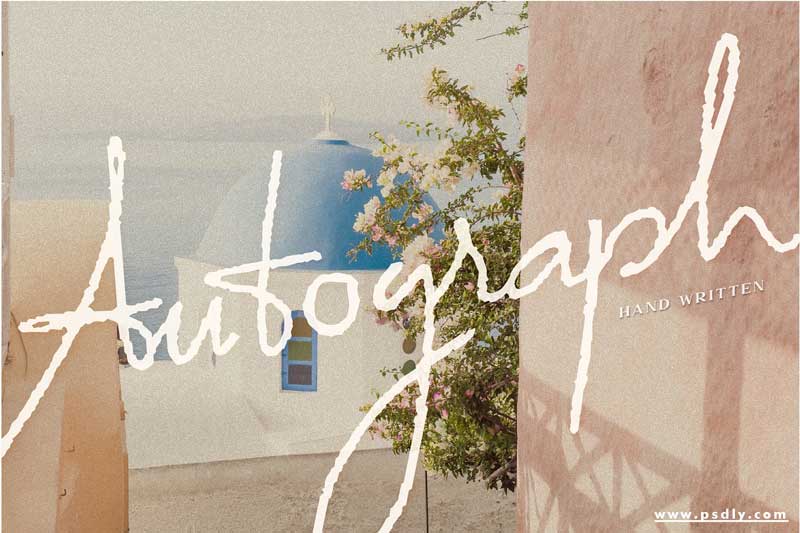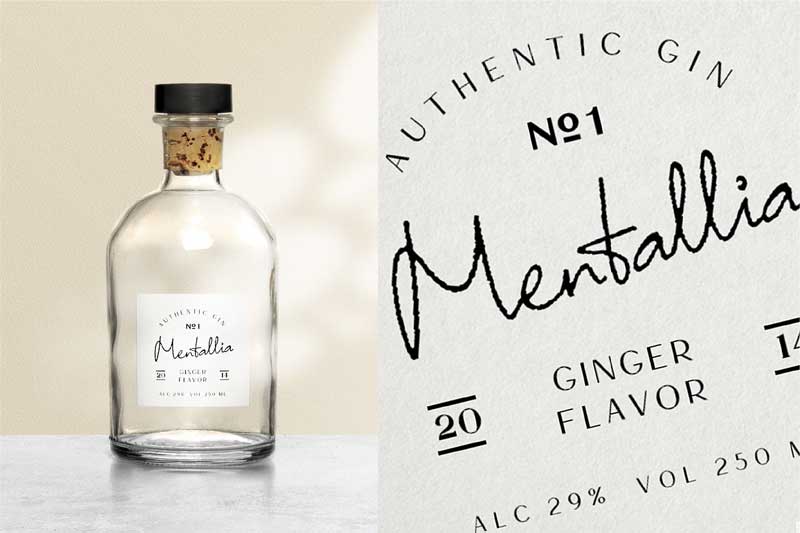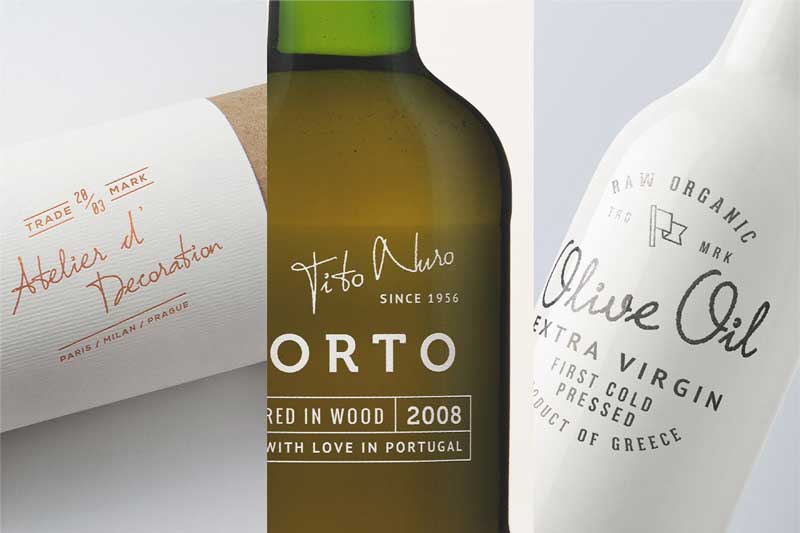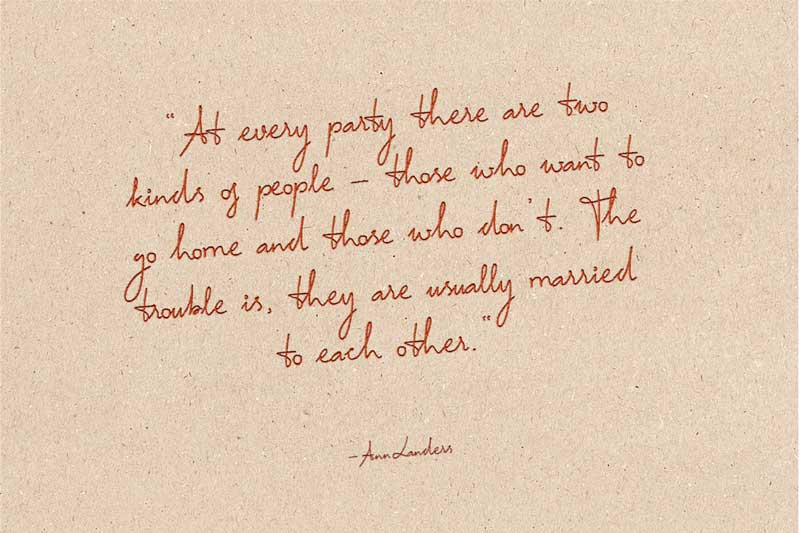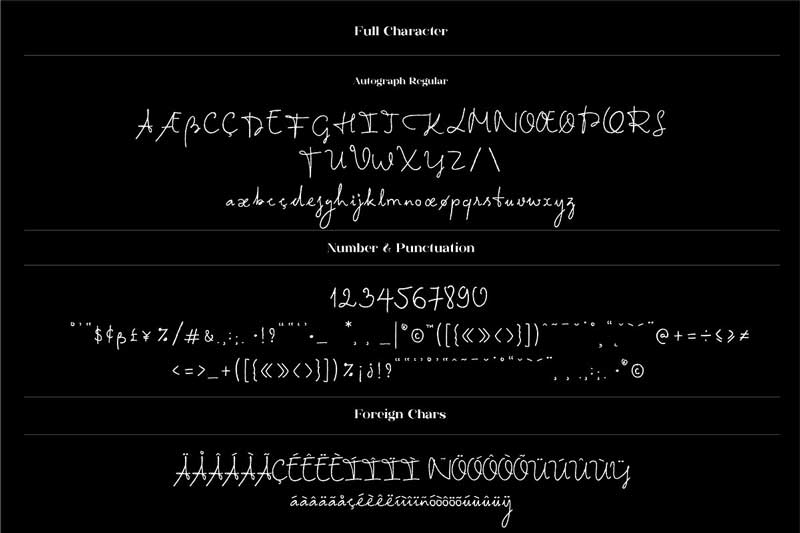
Autograph Handwritten Font
Download Free Creativemarket Autograph Handwritten Font 4163621. Autograph handwritten font suitable packaging, wedding papers, logo design and more. This typeface inspired by Harmonais Visual handwriting to give your design a natural touch.
For better results, we recommended using this font in 5 degrees to 10 degrees, making much more like you are writing on a piece of paper.